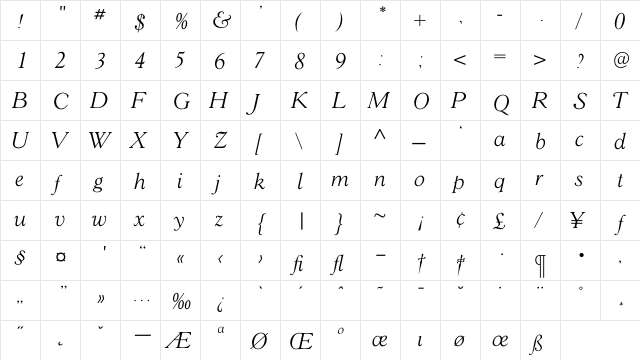
GoudY38LightItalic Regular Font Preview
Design Context for GoudY38LightItalic Typeface
GoudY38LightItalic takes a measured approach to typography — its balanced proportions and neutral character make it a reliable workhorse for both digital and print work. The dynamic lean of this cut emphasises speed and emphasis in any layout. The delicate stroke weight brings airiness and refinement to layouts.
Pro Tip: Use GoudY38LightItalic for emphasis, pull quotes, and subheadings where its slanted energy can add rhythm to the layout.